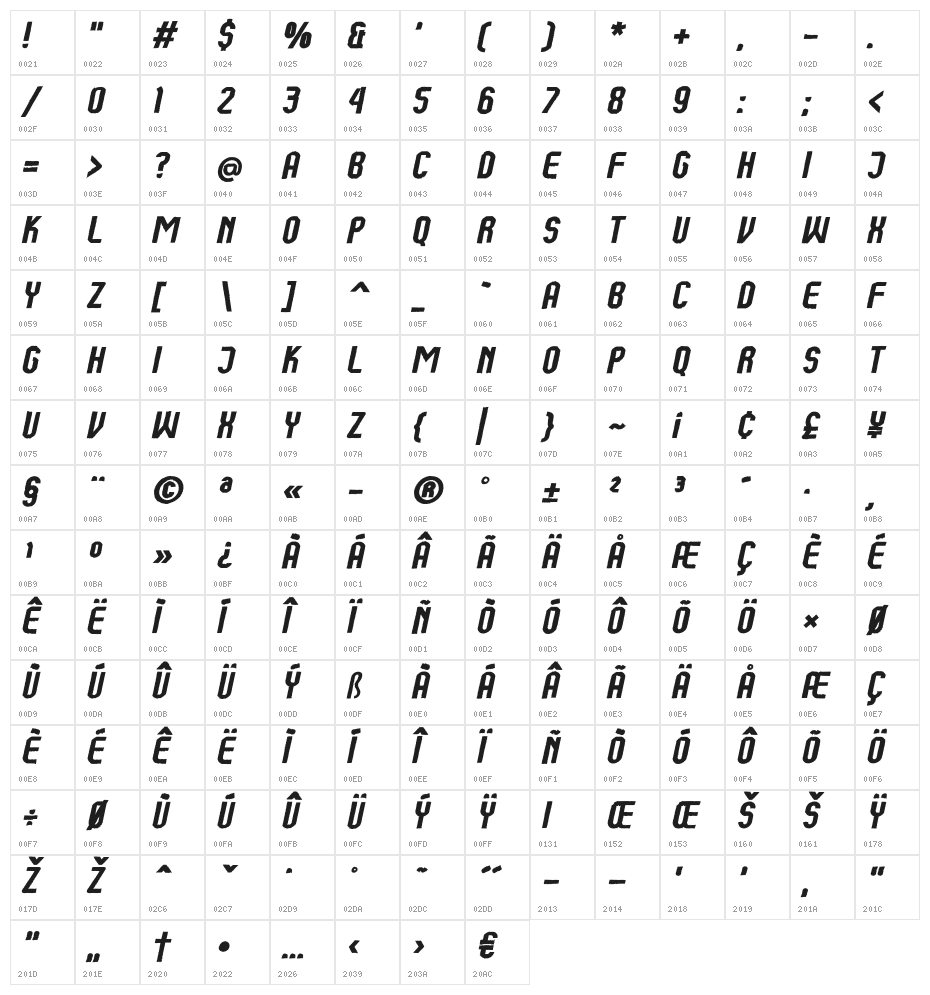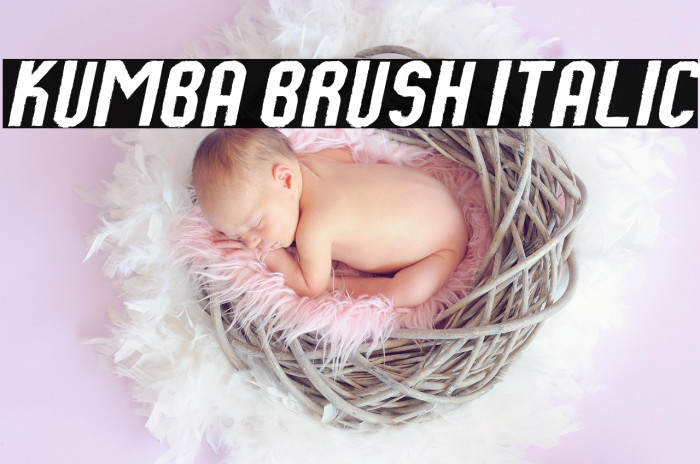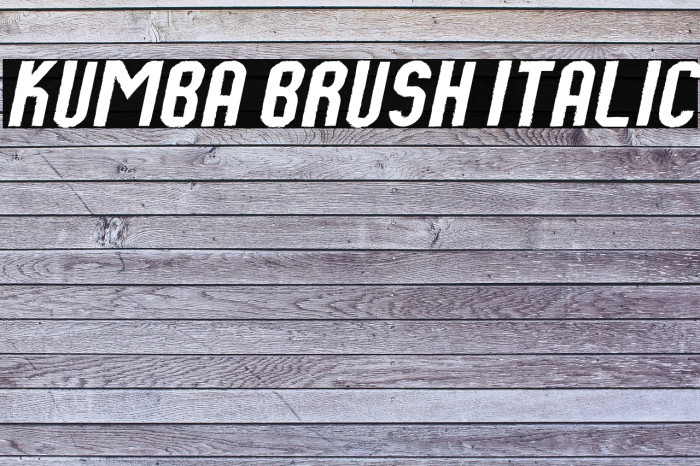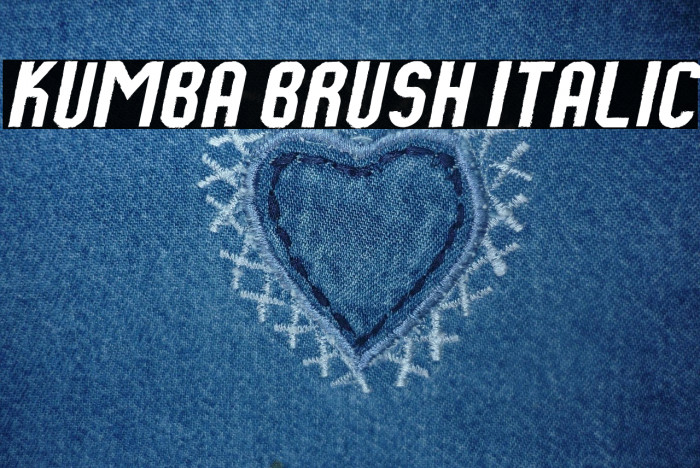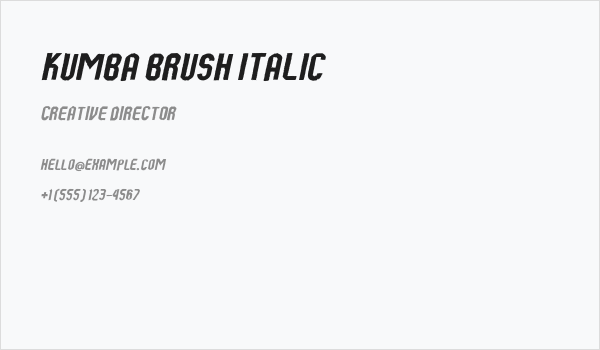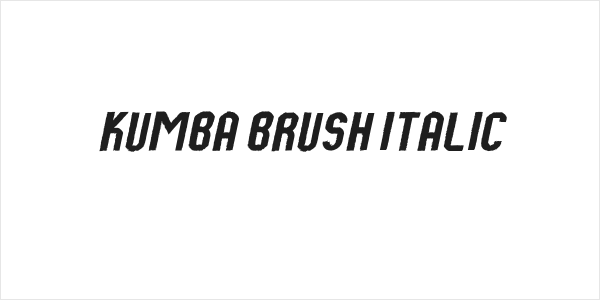
Kumba Brush Italic Font
Kumba Brush Italic Description
This font exudes a bold and dynamic presence with its brush-like strokes and italicized slant. The characters are crafted with a sense of movement, giving them an energetic and expressive feel. The uppercase and lowercase letters maintain a consistent style, with slightly exaggerated curves and angles that add to the overall impact. The numerals and special characters are equally robust, ensuring versatility across various applications. The font's design is both modern and artistic, making it suitable for projects that require a touch of creativity and flair.
Proposed ProjectsIdeal for branding, posters, headlines, and creative design projects that require a bold statement.